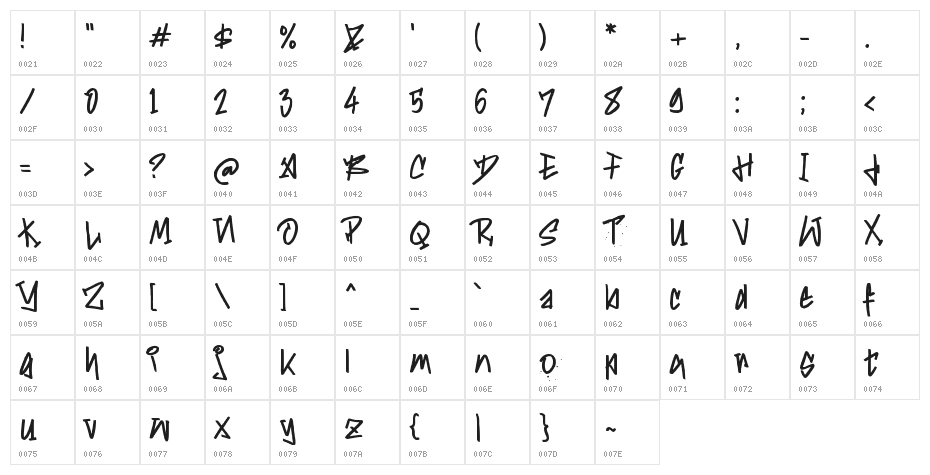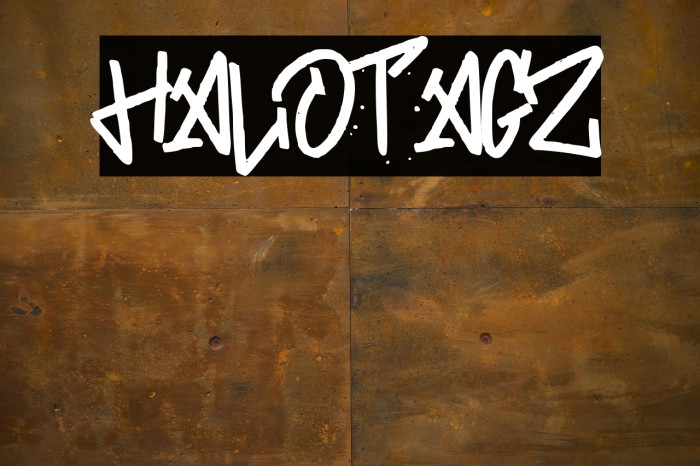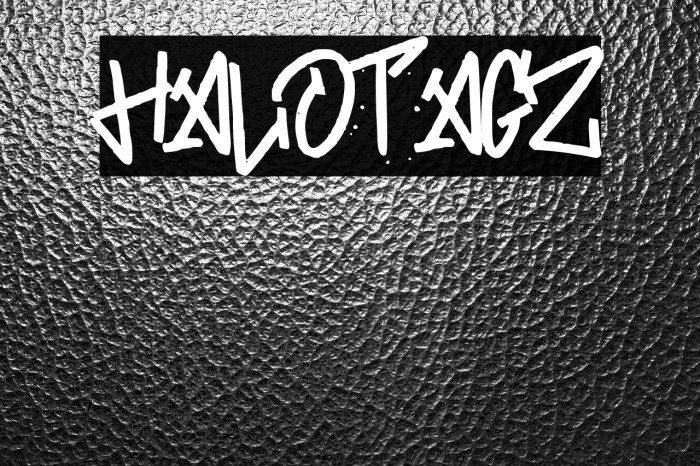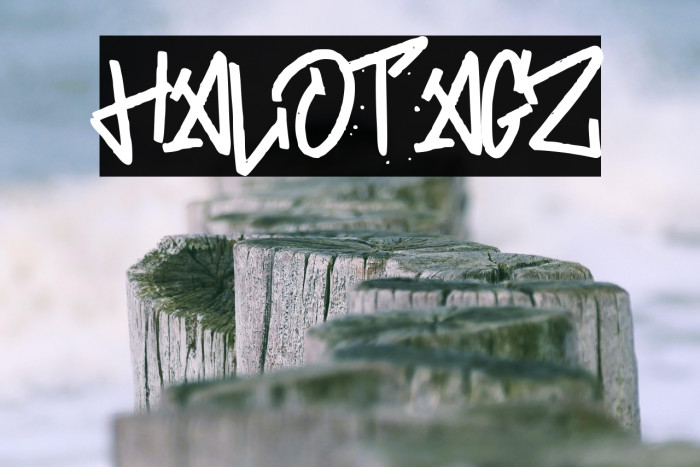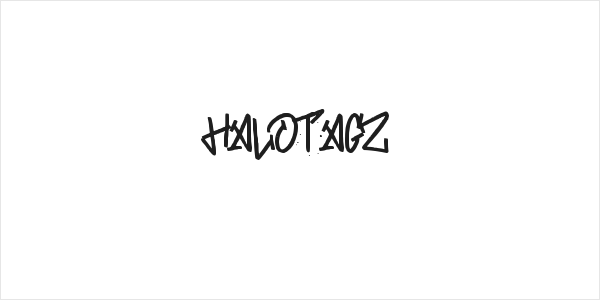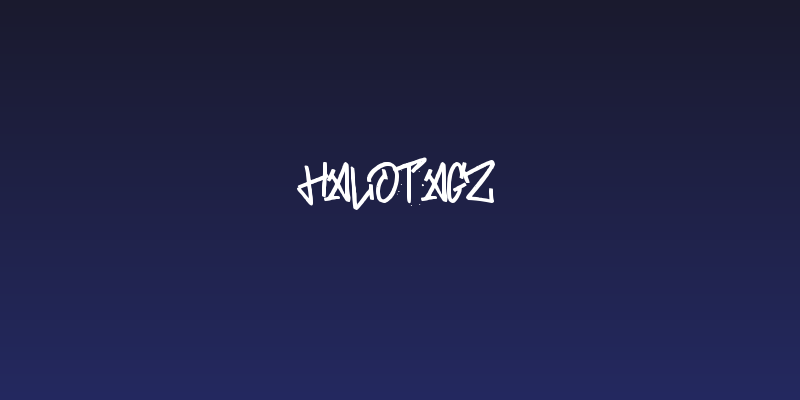
HALOTAGZ Font
HALOTAGZ Description
This font exudes a bold, urban graffiti style with its dynamic and energetic strokes. The characters are crafted with a hand-drawn aesthetic, featuring irregular and spontaneous lines that convey a sense of movement and creativity. The uppercase and lowercase letters maintain a consistent style, with angular and sharp edges that enhance its edgy appearance. Numbers and special characters are equally expressive, adding to the font's versatility. This font is perfect for projects that require a street art vibe or a rebellious, youthful energy.
| Overall Style | Urban, Graffiti, Edgy |
| Use Case | Logos, Posters, Album Covers |
| Proposed Projects | Ideal for street art designs, urban-themed posters, music album covers, and edgy branding projects. |